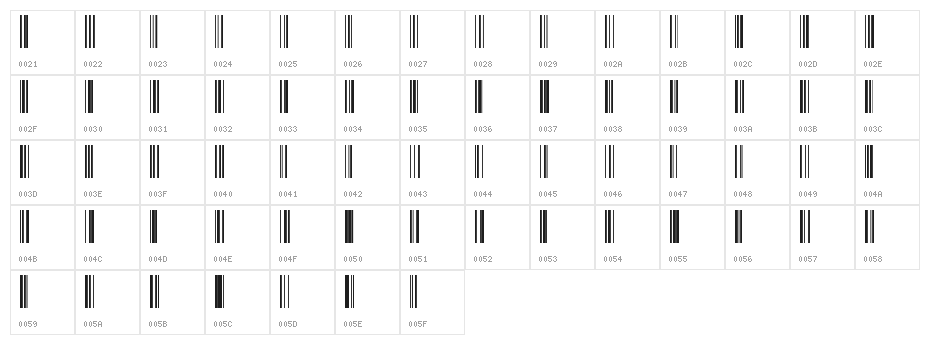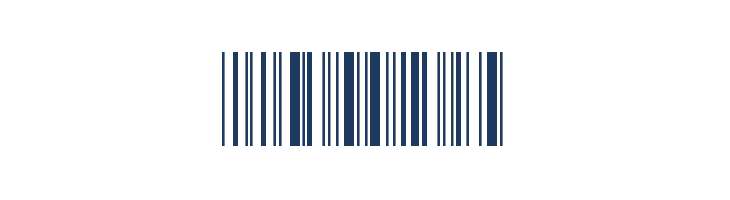
Code 128 Font
Code 128 Description
This font is a barcode symbology used extensively in various industries for inventory and tracking purposes. It is designed to encode alphanumeric data and includes a full ASCII character set. The characters are represented by a series of bars and spaces of varying widths, which are scanned and interpreted by barcode readers. The design is utilitarian, focusing on functionality and readability by machines rather than aesthetic appeal. The bars are evenly spaced, and the overall structure is compact, allowing for efficient use of space on labels and packaging.
| Overall Style | Utilitarian |
| Use Case | Barcodes, Inventory systems, Product labels |
| Proposed Projects | Ideal for inventory management systems, product labeling, shipping and logistics tracking, and any application requiring barcode scanning. |